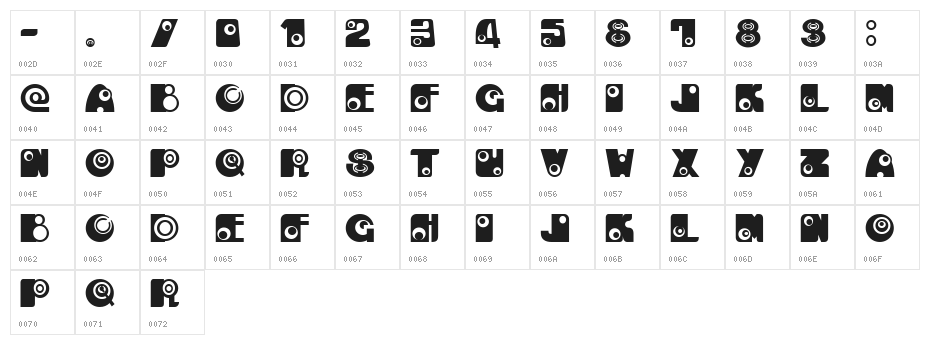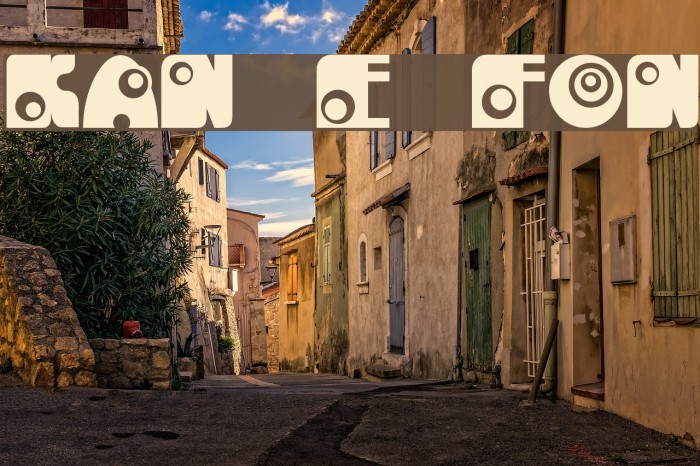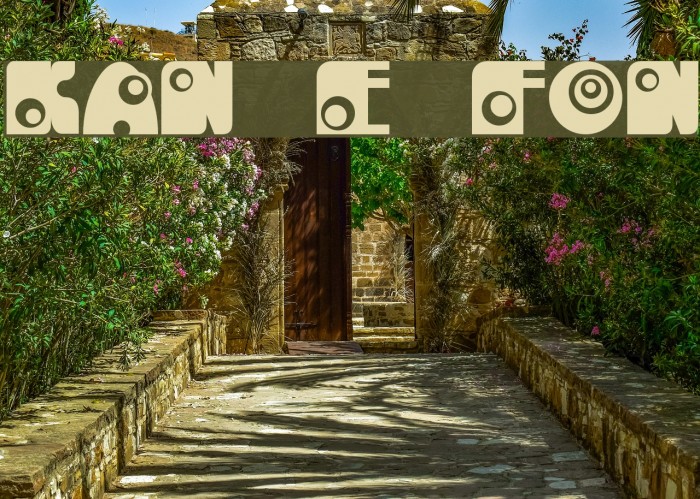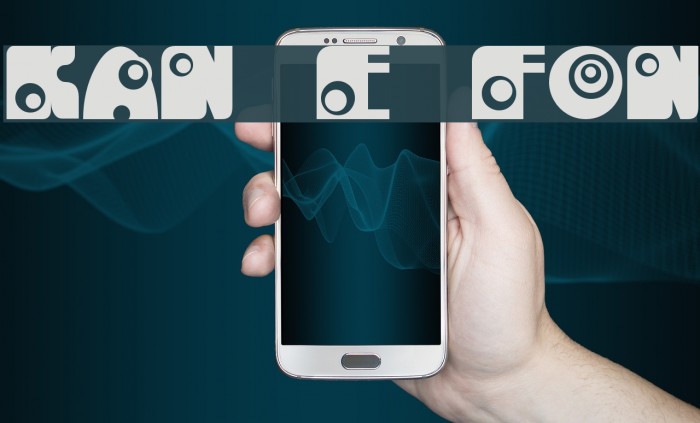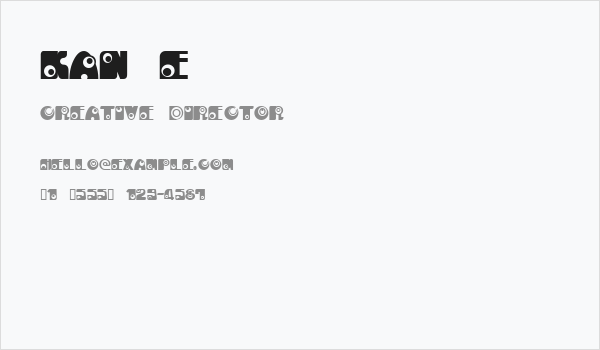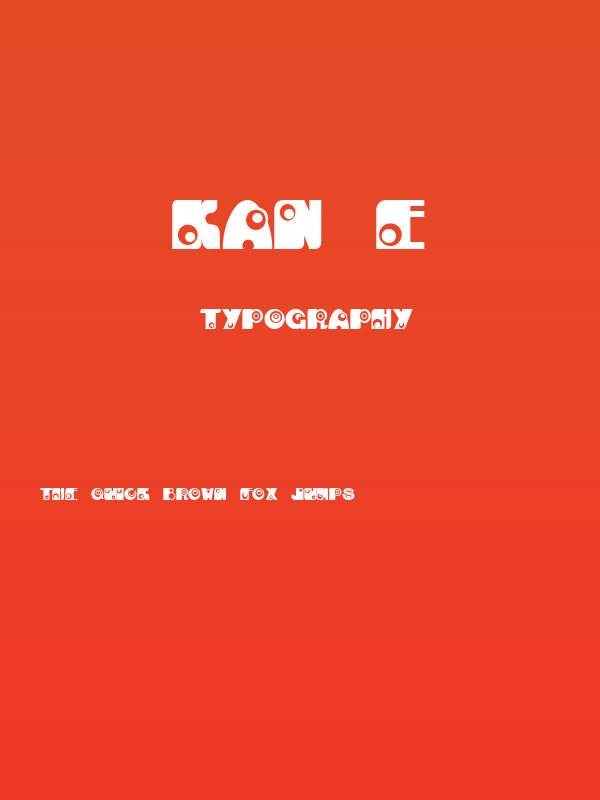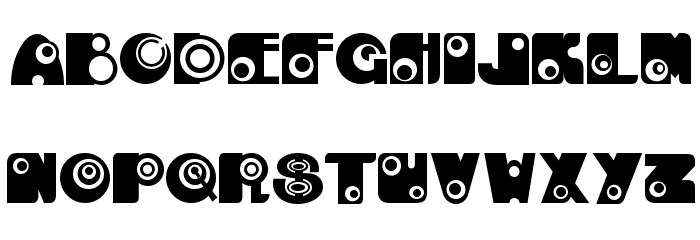
kan E Font
kan E Description
This font features a bold and playful design with a unique geometric style. Each character is crafted with circular and rectangular elements, creating a sense of movement and rhythm. The uppercase and lowercase letters maintain a consistent weight, while the numbers and special characters integrate seamlessly with the overall aesthetic. The font's boldness and distinctive shapes make it stand out, offering a modern and artistic feel. It is ideal for projects that require a touch of creativity and fun, such as posters, logos, and headlines. The design is both eye-catching and versatile, suitable for a variety of creative applications.
| Proposed Projects | Ideal for posters, logos, headlines, and creative design projects. |